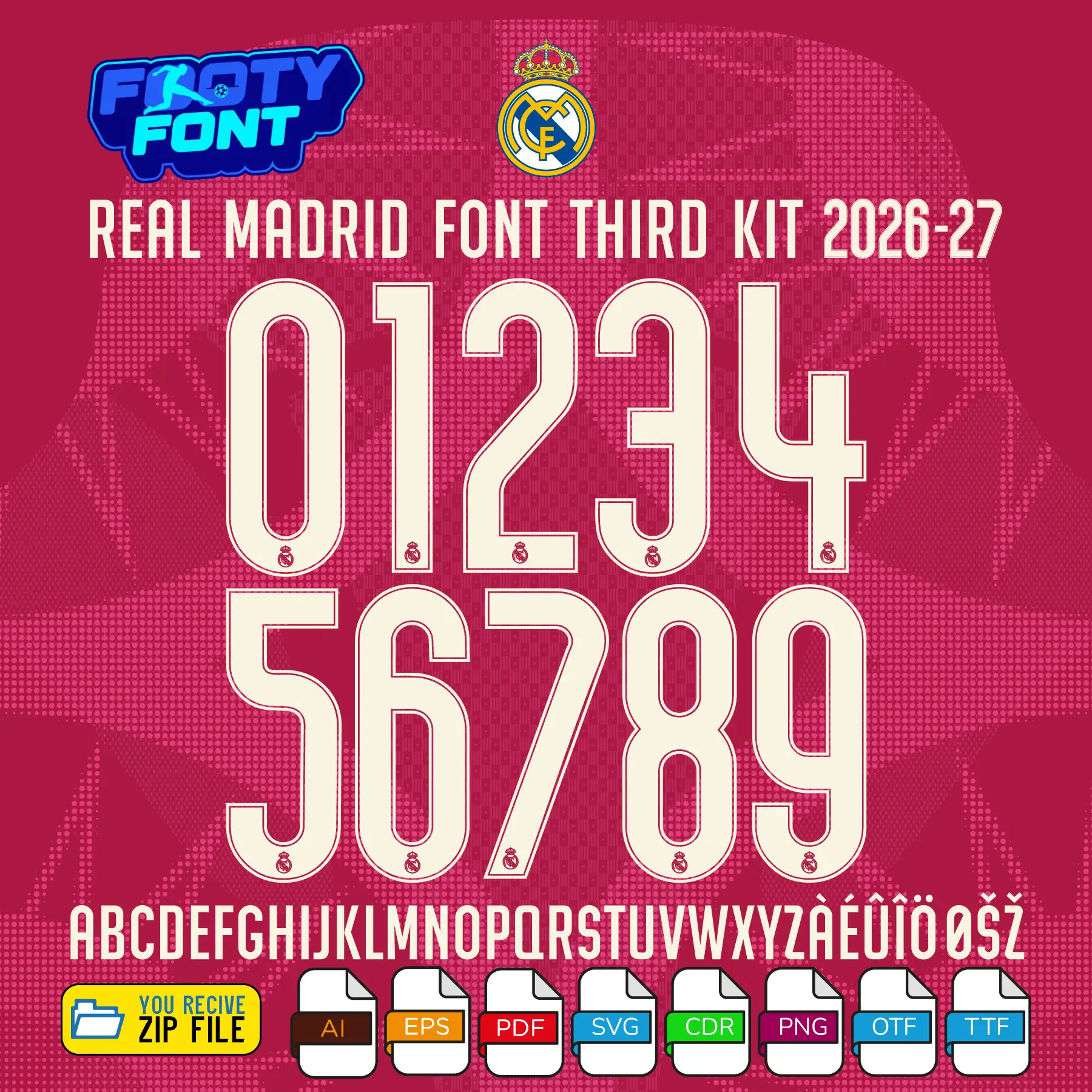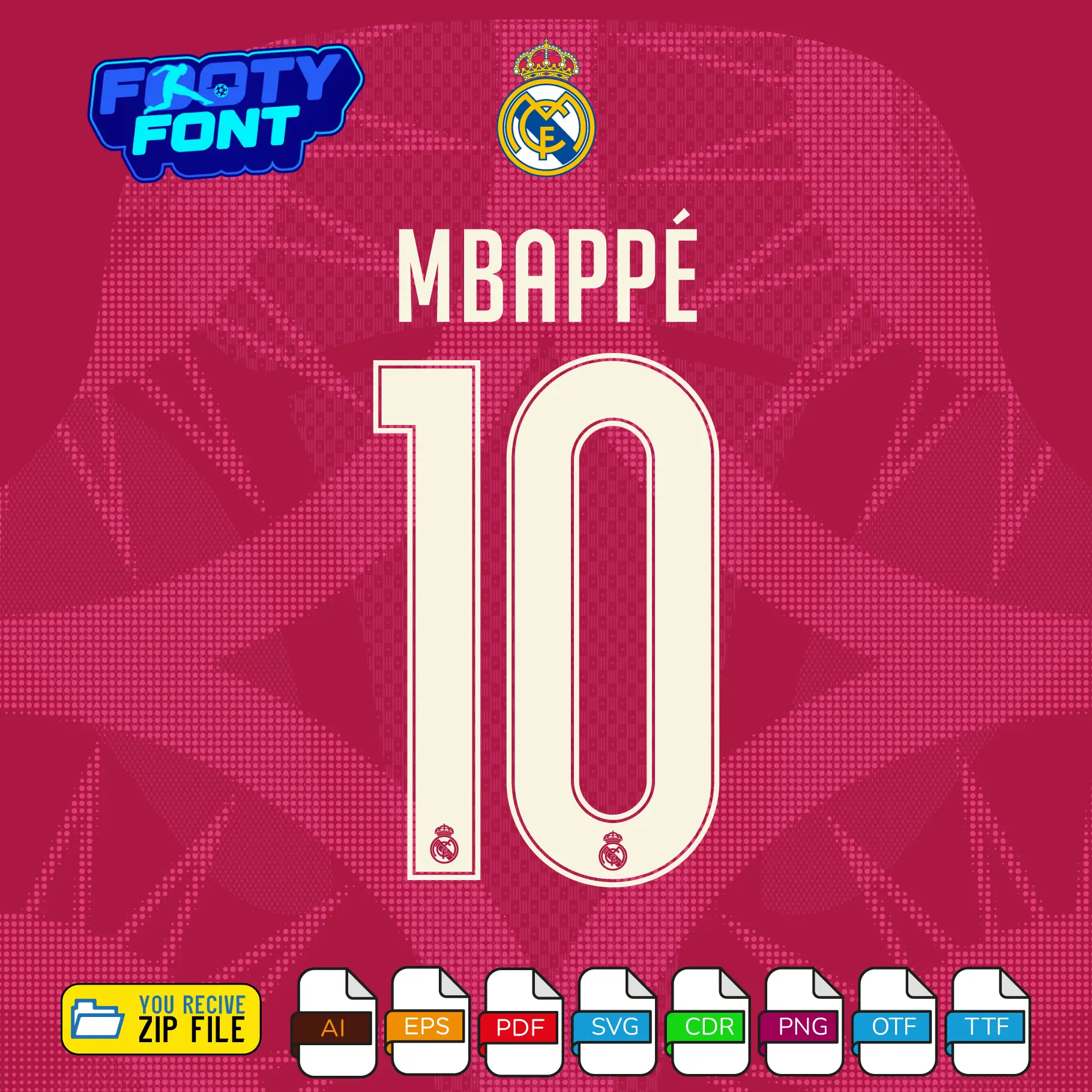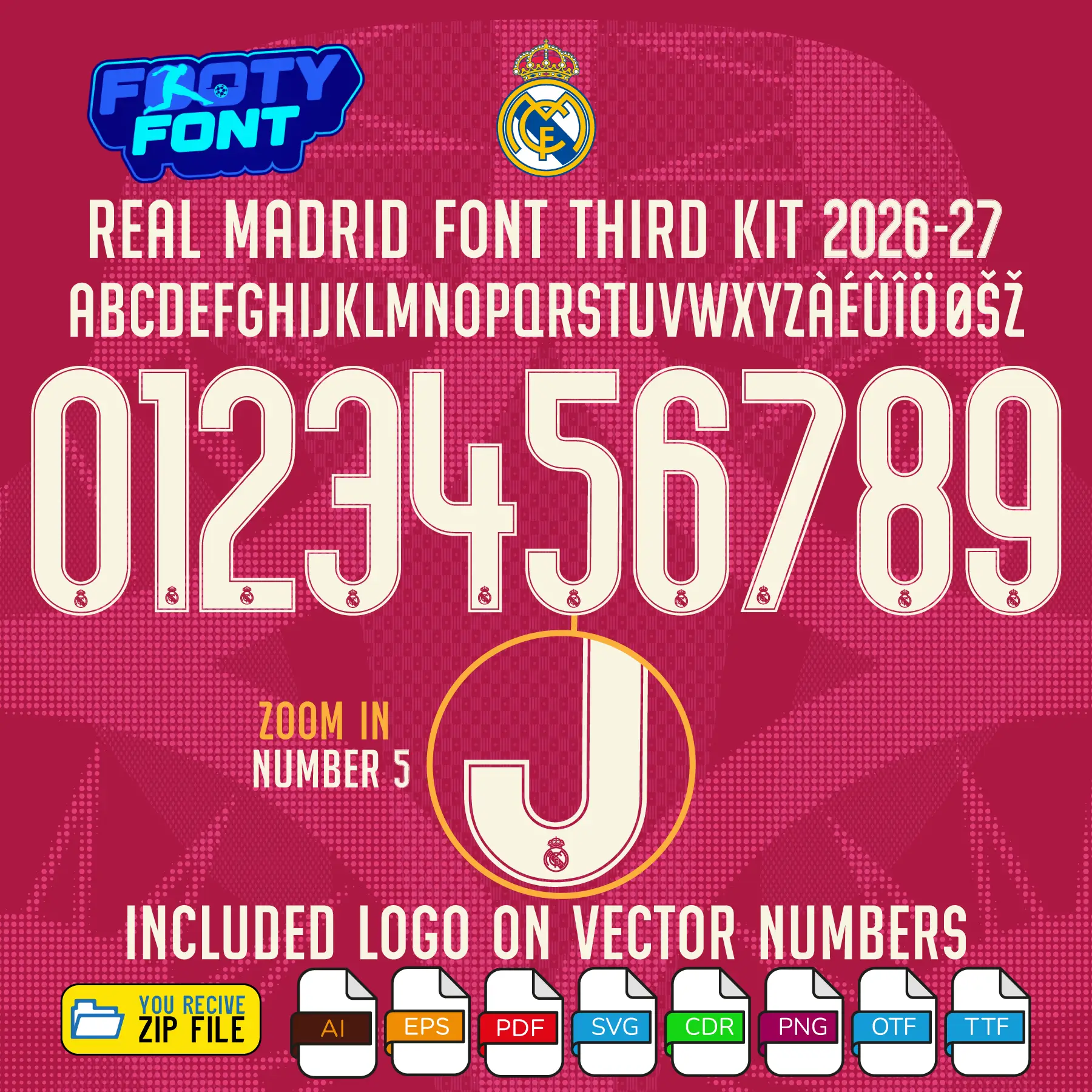
Real Madrid 2026-27 Third Font Vector Football Font
Bring the boldness of Los Blancos to your designs with this font football, inspired by the Real Madrid 2026-27 third kit typography. Meticulously recreated to reflect the European UCL and cup alternate look, this typeface features clean, off-white numerals bordered by a sharp thin outline that contrasts against the club’s vibrant berry-red textured third jersey pattern.
This font captures the elite style worn on the pitch by global superstars like Kylian Mbappé, Jude Bellingham, and Vinícius Júnior. Whether you are producing custom jerseys, matchday graphics, digital artwork, or fan merchandise, this vector font kit delivers match-accurate precision.